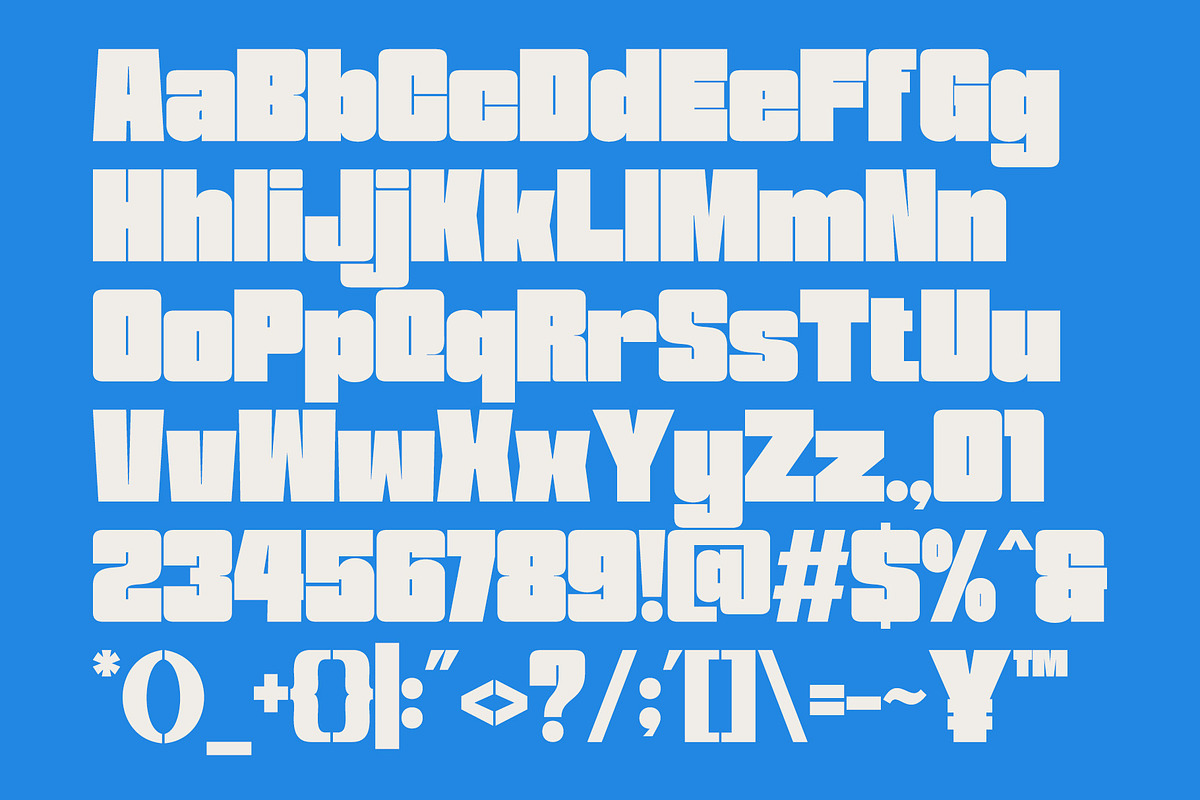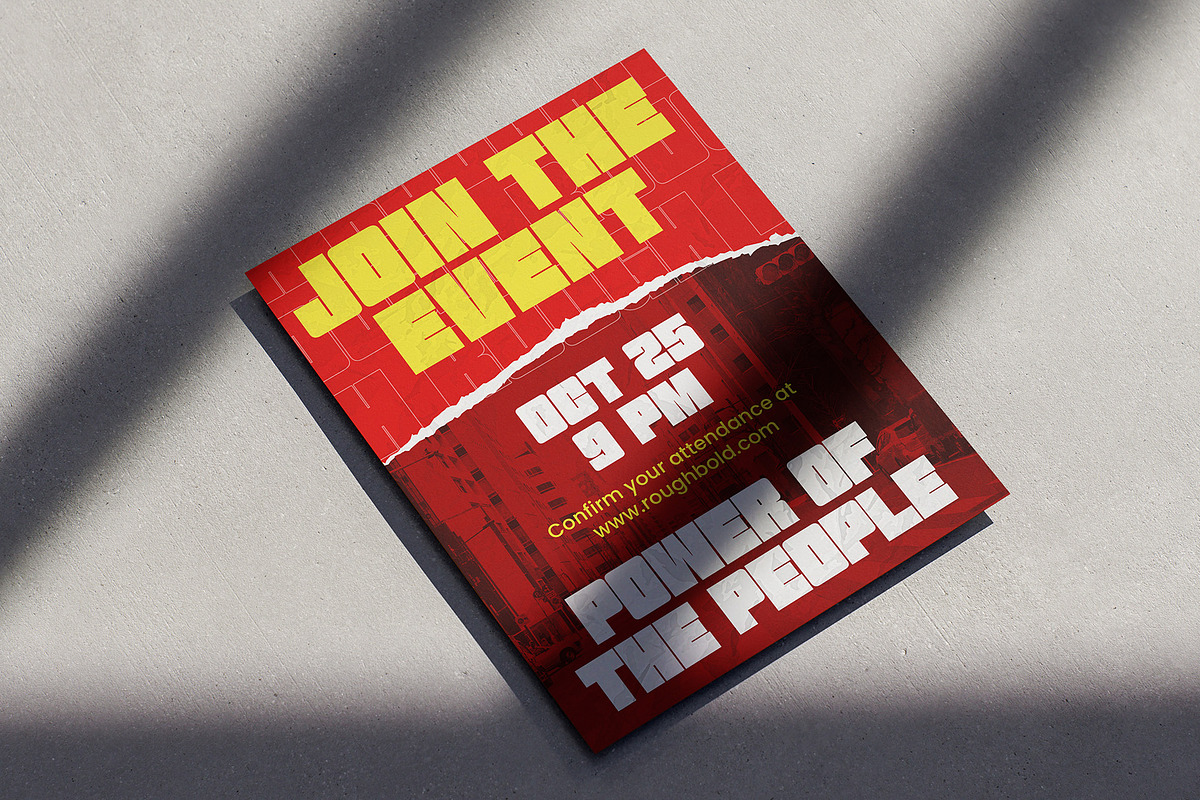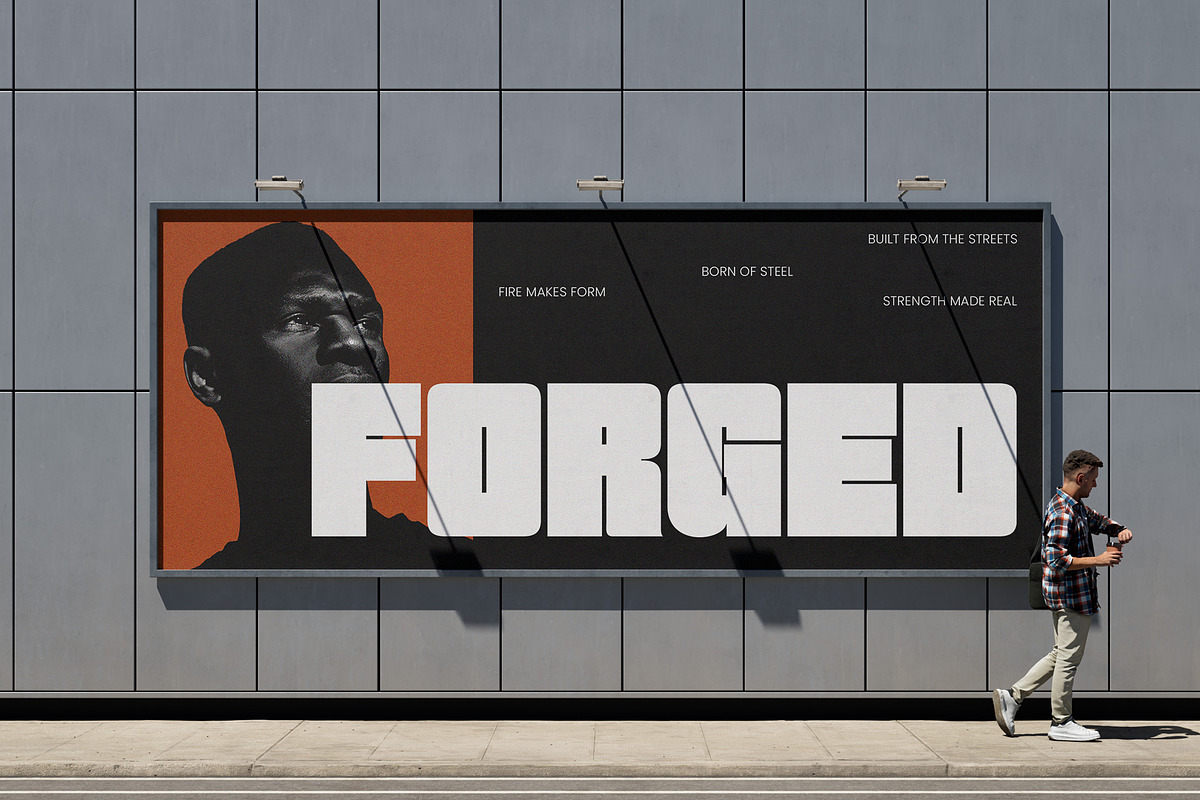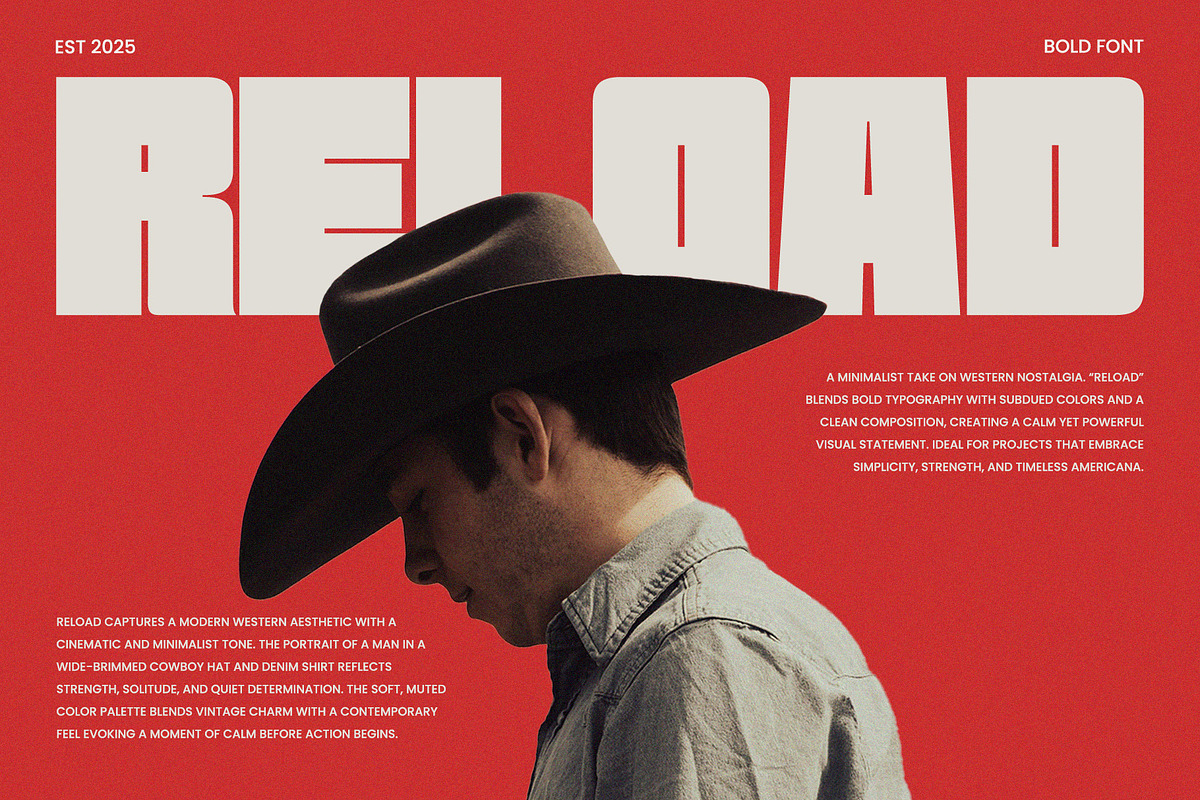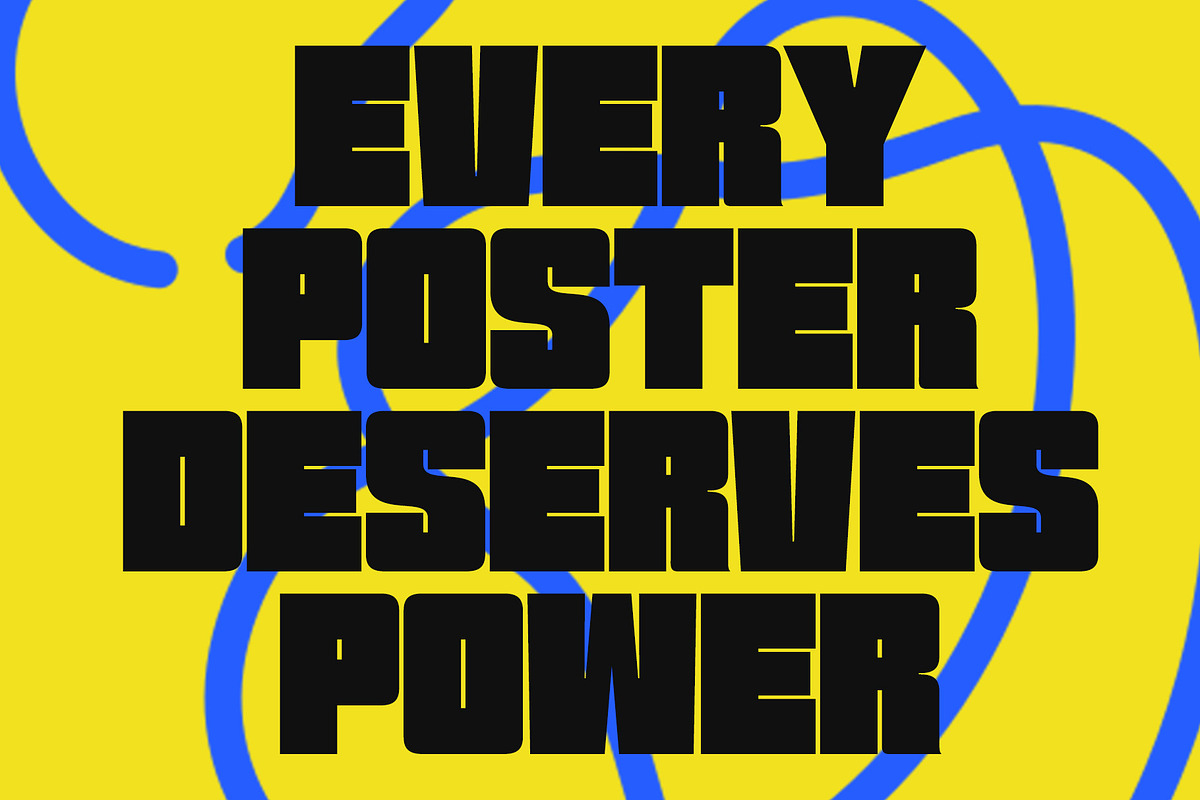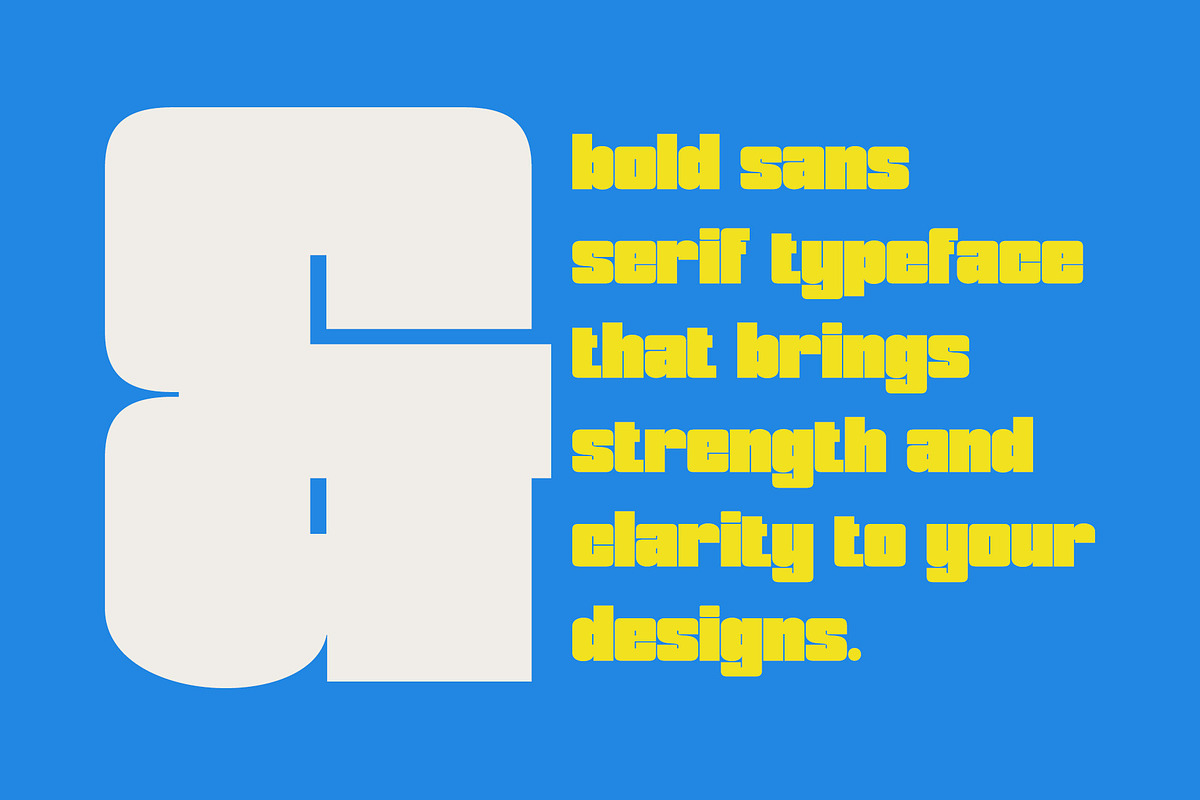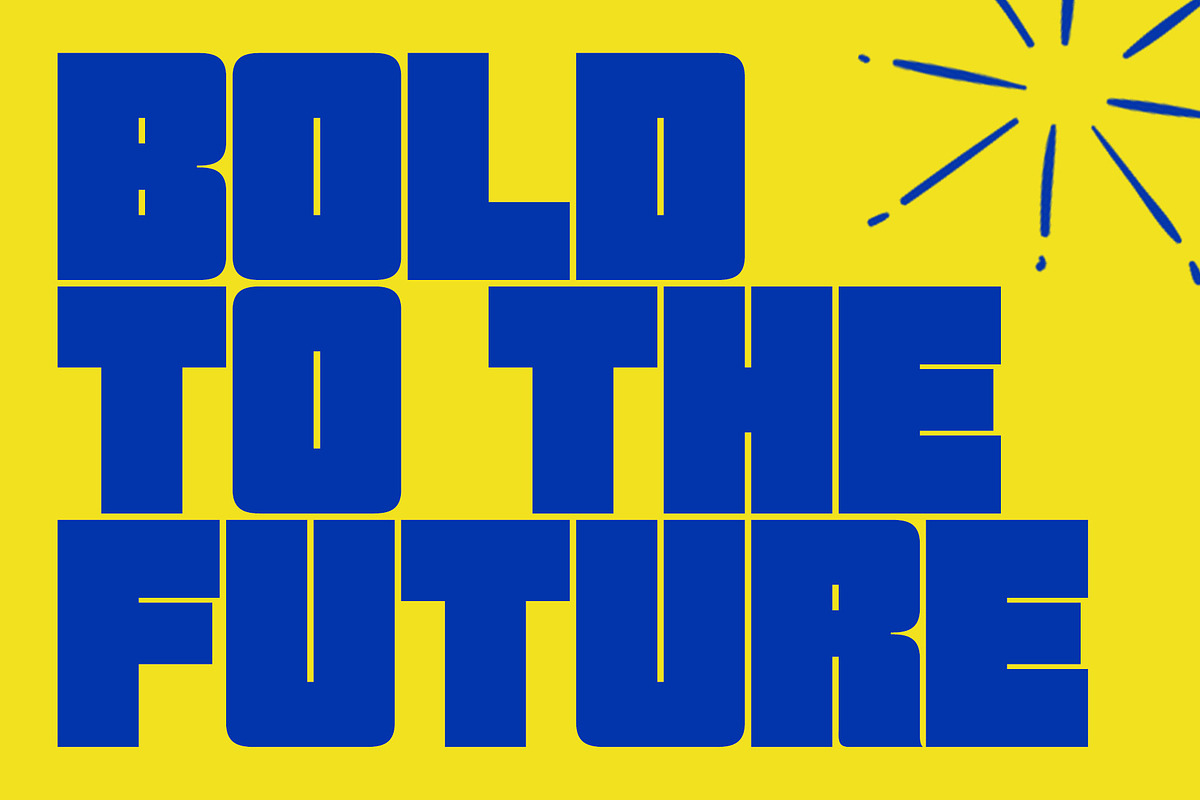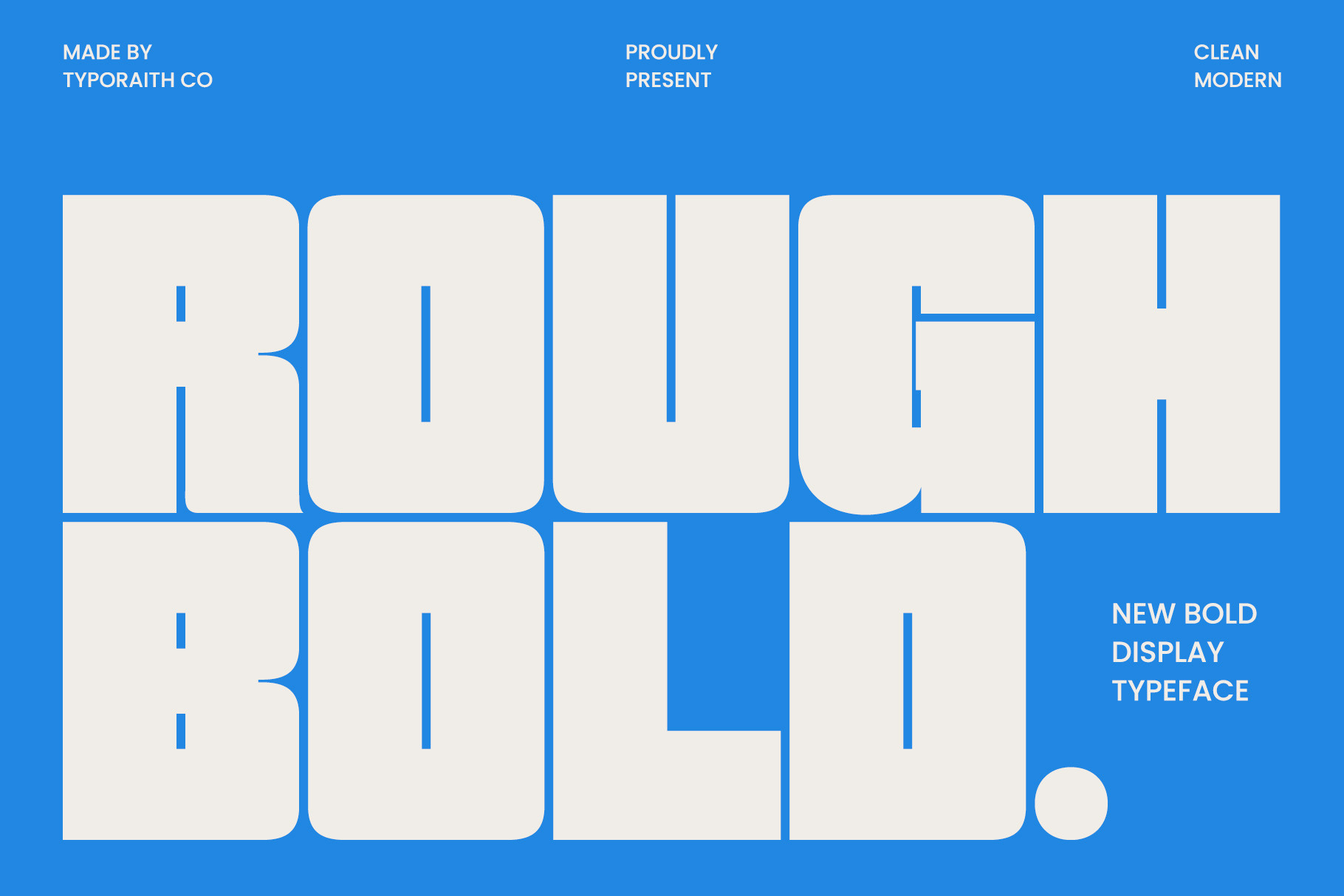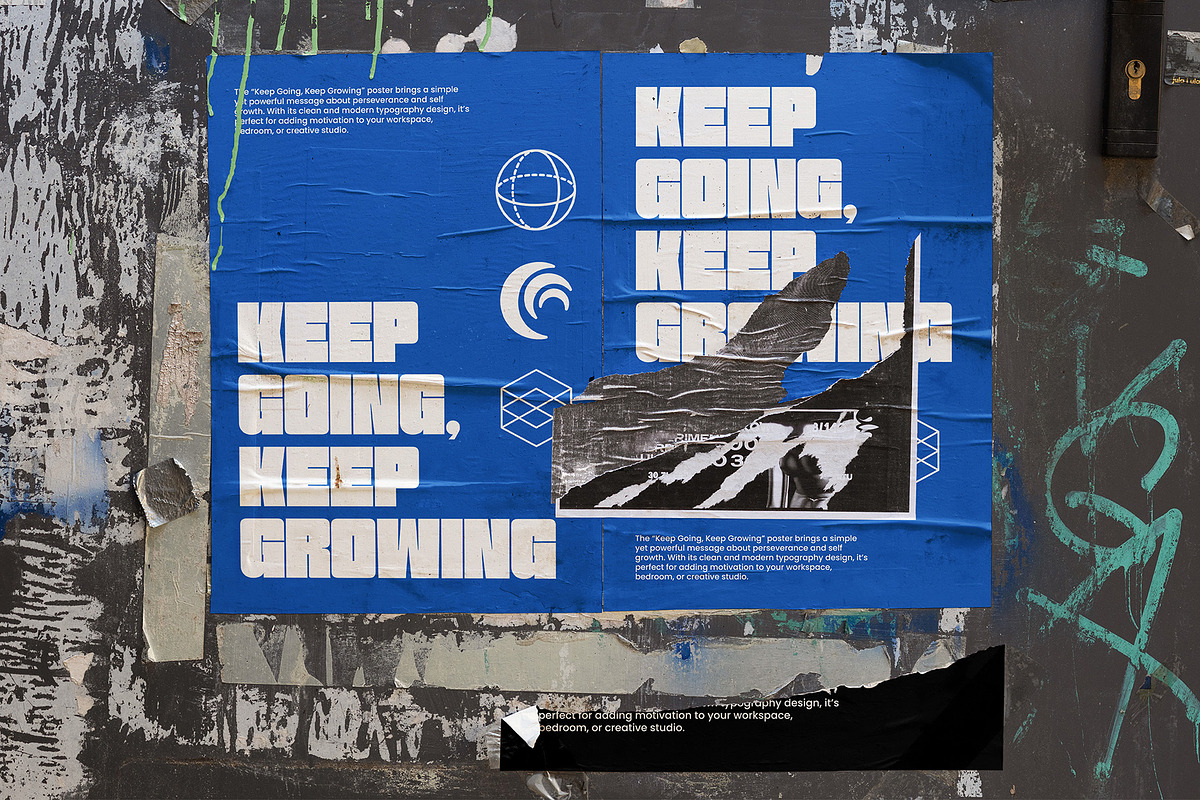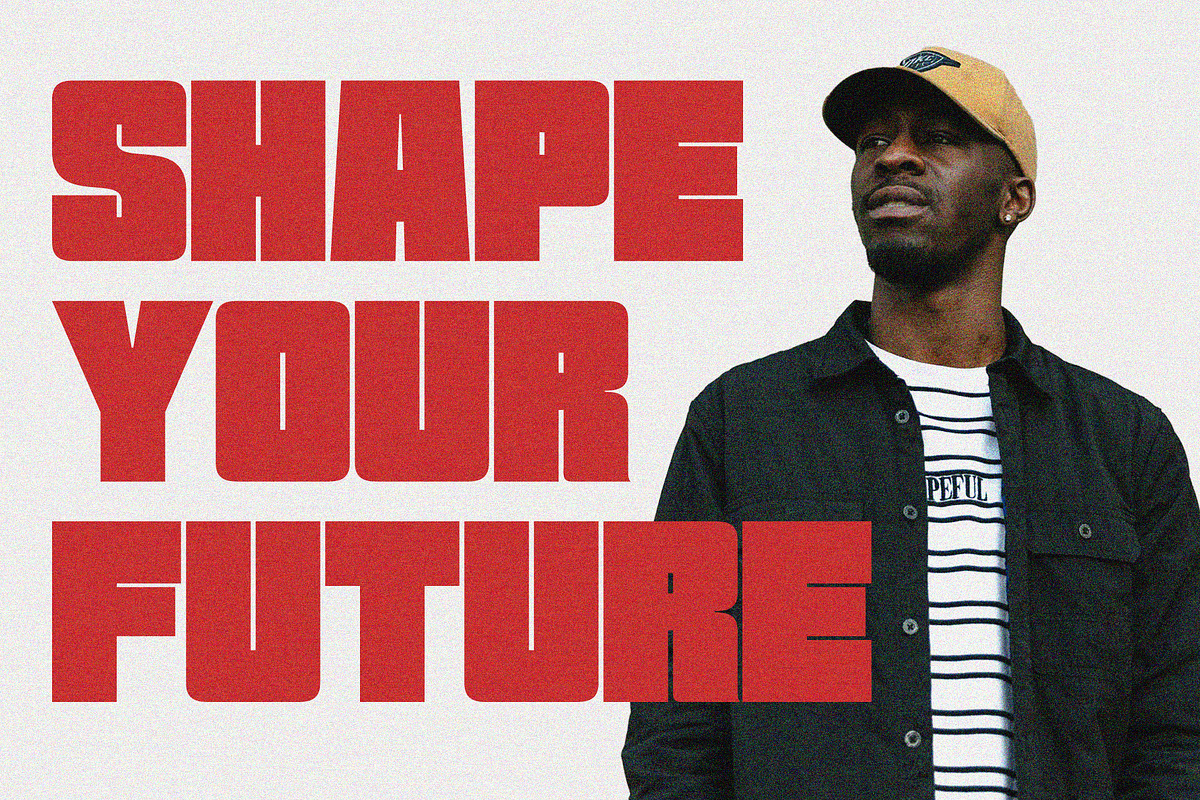
Rough | Bold Sans Serif Font
Introducing Rough Bold, a modern and powerful display typeface designed to make a strong statement. With its chunky geometric shapes and clean rounded edges, Rough Bold brings a perfect balance between modern minimalism and bold personality.
Ideal for posters, headlines, branding, packaging, billboards, and digital graphics, this font will instantly grab attention and add a unique touch to your creative projects.
Uppercase Letters
Clean, modern geometric shapes
Perfect for titles, logos, and bold typographic layouts
Make your design stand out with Rough Bold — a display font that defines strength and modern simplicity.